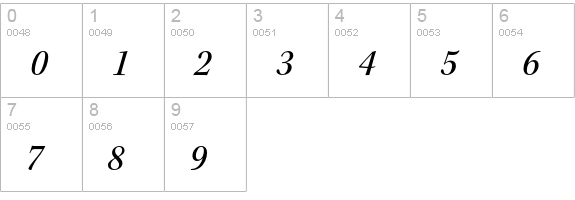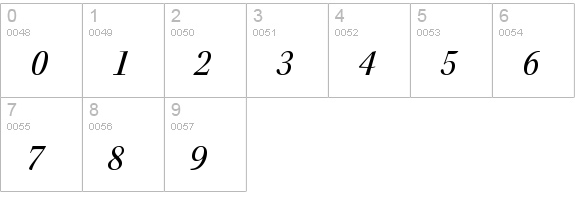
Kepler Std Medium Semicondensed Italic Subhead Font Details
Kepler Std Medium Semicondensed Italic Subhead is a balanced, medium-weight, italic variant in the Kepler typeface family \xE2\x80\x94 well suited to sub-headlines, navigation, and balanced editorial work.
The Kepler Std Medium Semicondensed Italic Subhead font is a sleek and stylish typeface that adds a touch of sophistication to any design project. With its medium weight and semicondensed structure, this font strikes the perfect balance between legibility and elegance. The italicized form of the font adds a sense of dynamic movement and emphasis, making it ideal for subheadings and titles. Its subtle slant adds a touch of flair without compromising readability. This font is perfect for a wide range of design applications, including editorial layouts, branding materials, advertisements, and more. Its versatility and modern aesthetic make it a go-to choice for designers looking to make a bold statement. One of the best things about the Kepler Std Medium Semicondensed Italic Subhead font is that it is freely available for download at FontsMarket.com. This means that you can easily access and use this font in your design projects without any hassle. So whether you're a professional designer or a creative enthusiast, don't miss out on the opportunity to elevate your designs with the Kepler Std Medium Semicondensed Italic Subhead font. Download it for free at FontsMarket.com and let your creativity soar.